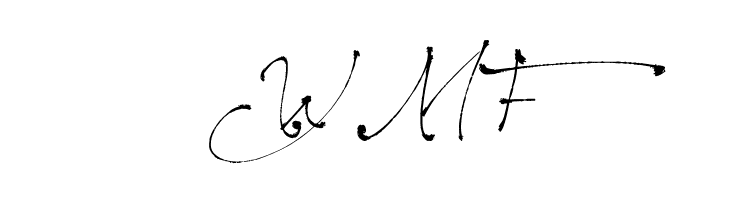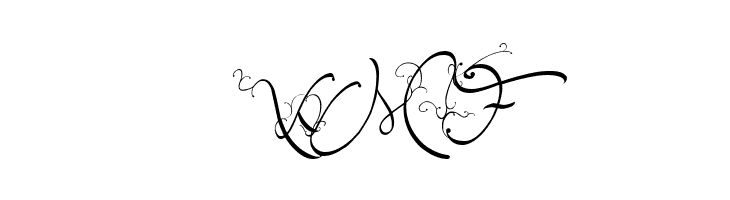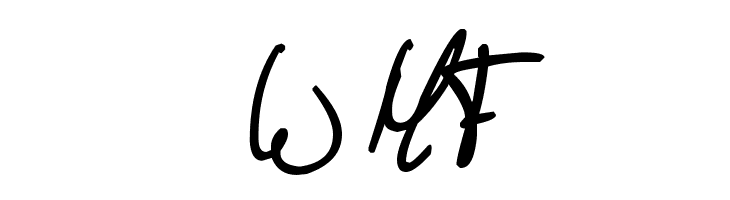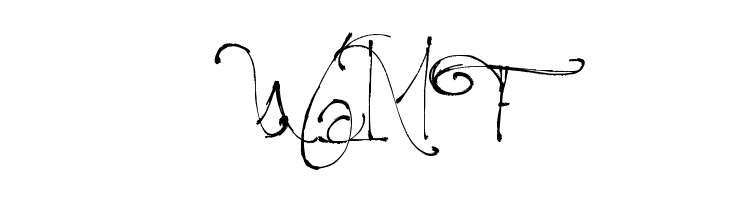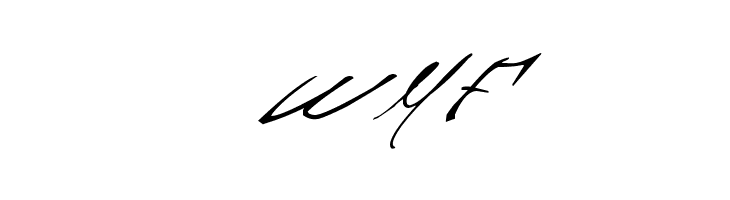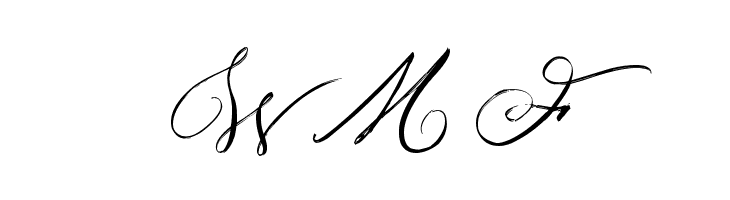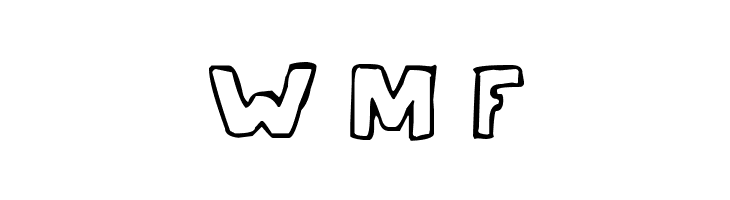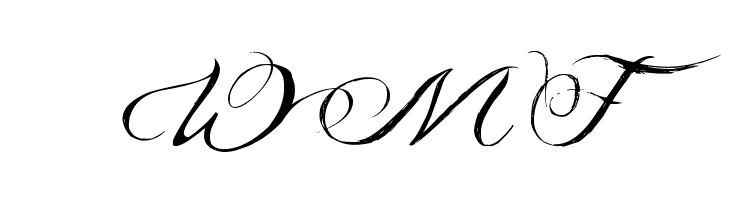
An ornate and decorative script font with intricate swirls and flourishes.
A fluid and elegant handwritten script with expressive strokes.
A whimsical, decorative script font with intricate swirls and loops.
A whimsical, handwritten font with artistic flourishes and dynamic line variations.
A whimsical, elegant cursive font with flowing, artistic strokes.
A whimsical, cursive script font with elegant loops and swirls.
A whimsical, elegant cursive script with ornate flourishes.
An elegant, flowing script font with intricate details and graceful curves.
An ornate and decorative script font with flowing, intricate letterforms.